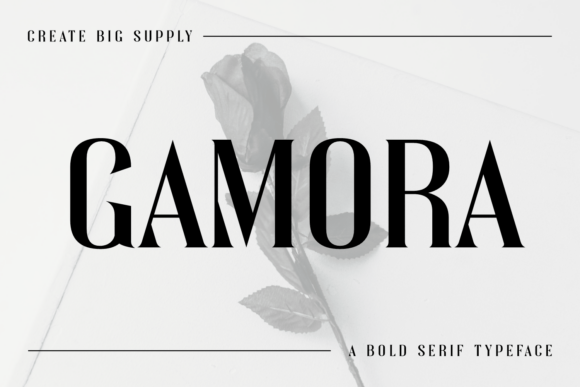
Gamora Font: Elevate Your Designs with a Bold and Expressive Serif
In the world of typography, fonts play a crucial role in conveying messages, evoking emotions, and creating lasting impressions. Among the myriad of fonts available, Gamora stands out as a bold and expressive serif font that has captured the attention of designers and typography enthusiasts alike. With its strong lines, striking character, and perfect blend of contemporary style and vintage charm, Gamora has become a go-to choice for creating impactful designs.
What is Gamora Font?
Gamora is a serif font that boasts a unique and captivating aesthetic. Its bold and expressive design makes it ideal for headlines, posters, and logos that require a strong visual presence. The font’s serif lines and classic structure evoke a sense of tradition and timelessness, while its modern twists and refined details inject a dose of contemporary flair.
Key Features of Gamora Font
- Bold and Expressive Design: Gamora’s bold lines and striking character make it perfect for creating eye-catching headlines and titles.
- Serif Structure: The font’s serif design adds a touch of classic elegance and sophistication to any design.
- Contemporary Style: Gamora’s modern twists and refined details ensure that it remains fresh and relevant in today’s design landscape.
- Vintage Charm: The font’s classic structure and serif lines evoke a sense of nostalgia and timelessness.
- Versatility: Gamora is suitable for a wide range of design applications, from posters and logos to magazines and digital media.
Uses of Gamora Font
Gamora’s versatility and visual appeal make it an excellent choice for various design projects. Some of the most popular uses of Gamora font include:
- Headlines and Titles: Gamora’s bold design makes it perfect for creating attention-grabbing headlines and titles.
- Posters and Flyers: The font’s striking character and classic structure make it ideal for posters and flyers that require a strong visual impact.
- Logos and Branding: Gamora’s unique blend of modern and vintage elements makes it an excellent choice for logos and branding materials.
- Magazines and Publications: The font’s serif design and classic structure make it suitable for magazine titles, headings, and other typography needs.
- Digital Media: Gamora’s versatility and legibility make it an excellent choice for digital media, including websites, social media, and mobile apps.
Benefits of Using Gamora Font
Using Gamora font in your designs offers several benefits, including:
- Improved Readability: Gamora’s clear and legible design ensures that your message is conveyed effectively.
- Increased Visual Impact: The font’s bold and striking character grabs attention and creates a lasting impression.
- Enhanced Creativity: Gamora’s unique blend of modern and vintage elements inspires creativity and adds a touch of sophistication to your designs.
- Versatility: The font’s adaptability makes it suitable for a wide range of design applications.
Tips for Using Gamora Font Effectively
To get the most out of Gamora font, consider the following tips:
- Use it for Headlines and Titles: Gamora’s bold design makes it perfect for headlines and titles that require a strong visual presence.
- Pair it with Other Fonts: Combine Gamora with other fonts to create a unique and visually appealing typography scheme.
- Experiment with Colors and Textures: Add depth and interest to your designs by experimenting with different colors and textures.
- Keep it Simple: Don’t overcomplicate your design – Gamora’s bold design can speak for itself.
Gamora font is a bold and expressive serif font that offers a unique blend of contemporary style and vintage charm. Its versatility, visual appeal, and legibility make it an excellent choice for a wide range of design applications. By incorporating Gamora into your designs, you can elevate your typography, create a lasting impression, and add a touch of sophistication to your work.
- What is Gamora font? Gamora is a bold and expressive serif font with strong lines and striking character.
- What is Gamora font used for? Gamora is suitable for headlines, posters, logos, magazines, and digital media.